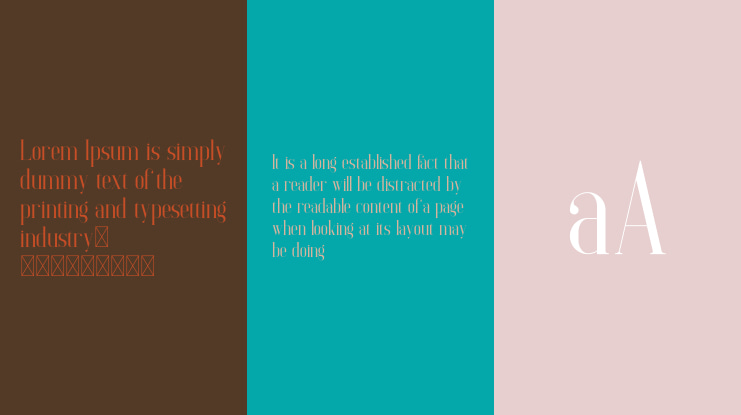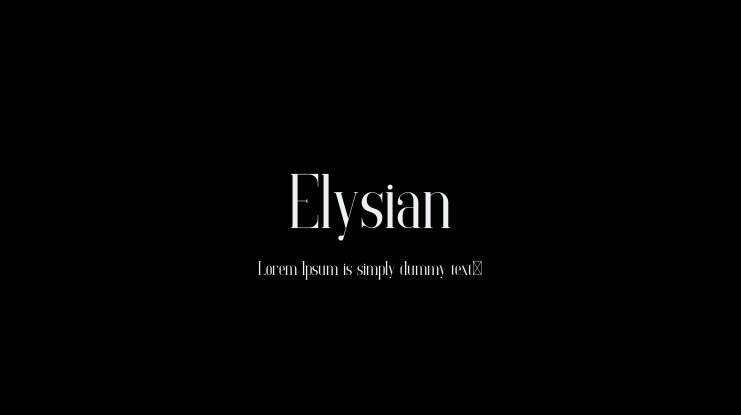
Elysian Font
Elysian is vintage, elegant font with tons of alternate glyphs, ligatures and multilingual support. It's a very versatile font that works great in large and small sizes.